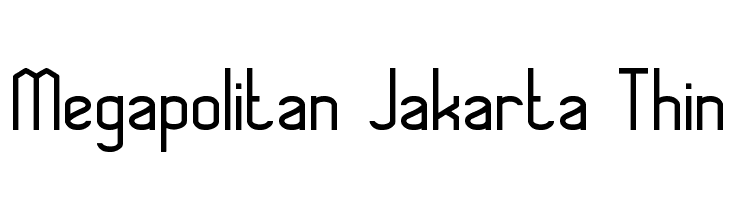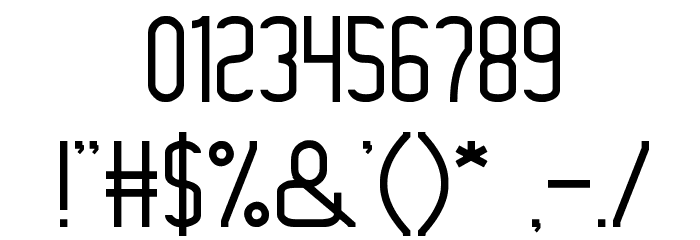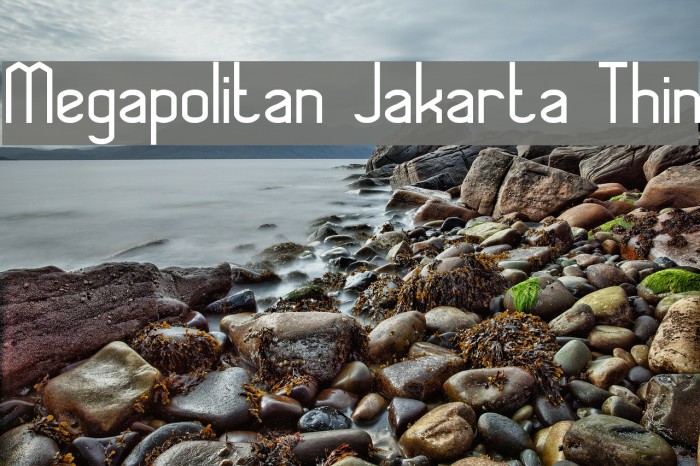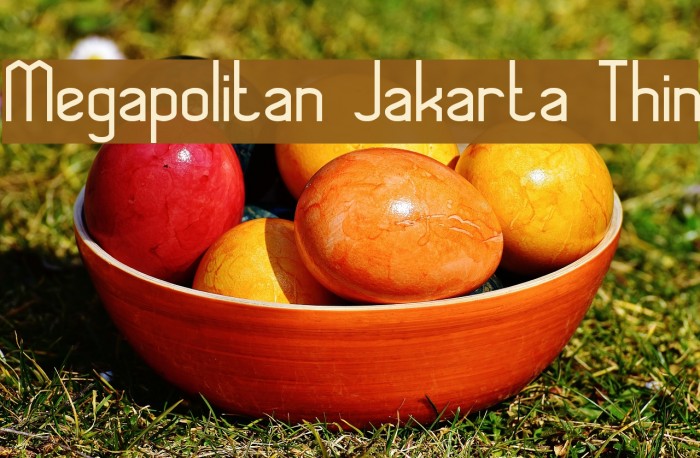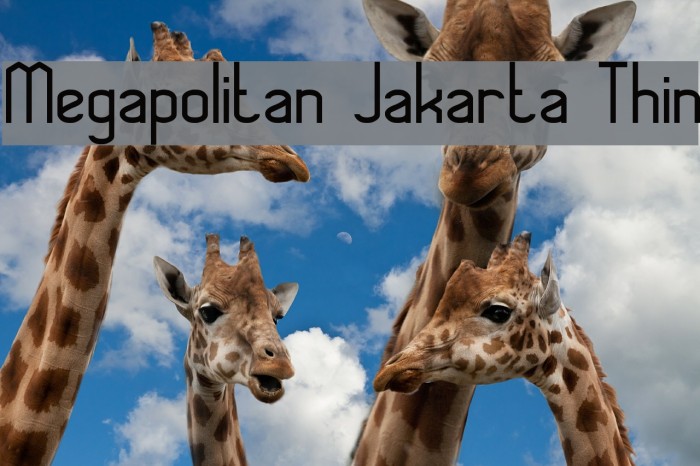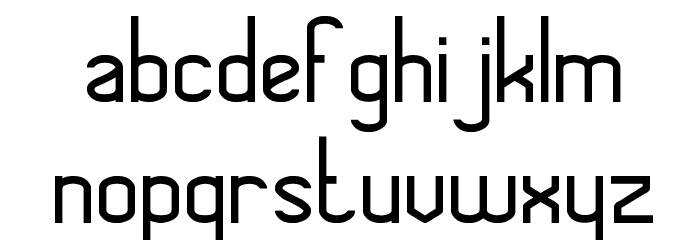
Megapolitan Jakarta Thin Font
Megapolitan Jakarta Thin Description
This font features a modern, geometric design with a thin, streamlined appearance. The uppercase letters are tall and narrow, with consistent stroke widths that give it a clean and sophisticated look. The lowercase letters maintain a similar geometric style, offering a harmonious balance between the two cases. Numbers and special characters are designed to match the overall aesthetic, ensuring uniformity across all elements. The font's minimalistic style makes it versatile for various design applications, while its unique character shapes add a touch of elegance and modernity.
A modern, geometric font with thin, consistent strokes and a clean, sophisticated appearance from Uncategorized fonts.
- Proposed Projects: Ideal for branding, editorial design, and digital interfaces where a modern and sleek look is desired.
- Weight: Light
- Use Case: Headlines, Logos, Digital Interfaces